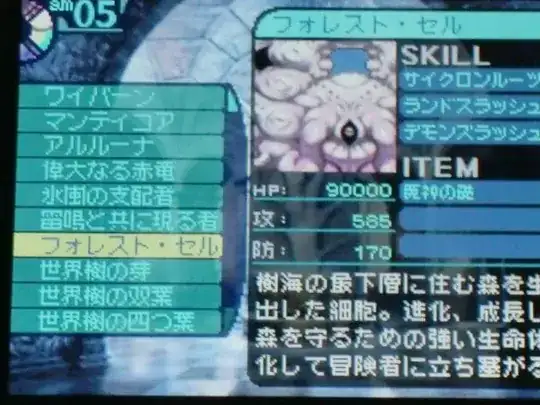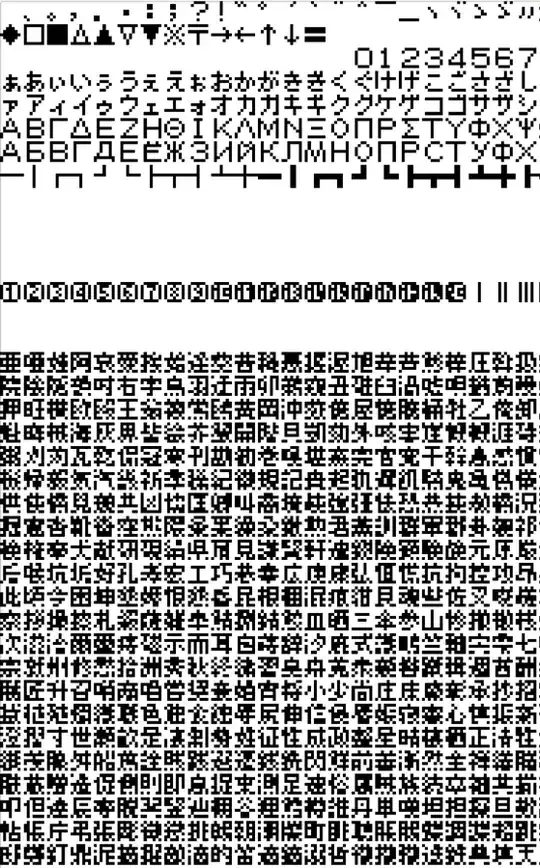
I am translating my mobile game from english to japanese. It is pixel art style, so I need pixel art font. I found one with 8px height, but I don't know if it is too small to understand, because I don't know any japanese myself. These kanji glyphs worry me the most.
So my question is, do you understand these glyphs or are they too hard to read?
Not Japanese, beginner level: can recognize about 15-25%. In the context it would be easier, I think. But those at the bottom... – scriptin Jul 04 '16 at 22:06
The kanji together looks like some QR code. I can't make out many of them. – Flaw Jul 05 '16 at 09:07
TLDR: Use at least a 9px font unless you want negative reviews.
This is 美咲フォント, isn't it? Actually, it's indeed 7px per glyph plus 1px padding :) I know this font, but didn't mention it in my previous answer, because I thought you will never need this in smartphone games with LCDs with >200 dpi.
8px (7px + 1px) kanji fonts are used in some real games on 3DS, which is equipped with very low-res screens. For example, the 3DS version of Dragon Quest X and games from Etrian Odyssey franchise use this font (or something similar), because they needed to display many characters simultaneously.
However, such fonts are only readable and understandable with the aid of the context. And even with the context, some kanji are still hard to recognize even to a native speaker. I remember great many Dragon Quest users complained about the difficulty in recognizing characters when the 3DS version was released. Even the native speakers could not distinguish between 鉄の剣, 鋼の剣 and 銅の剣 ("iron, steel and copper sword", respectively).
If you do need this tiny font, you have to be more careful than usual. You have to tell your translators to avoid using complicated kanji in the translation process. Try to use it as sparingly as possible, and never use it in the critical parts of your game.
Example (screenshot from Etrian Odyssey taken from this blog article):
The list on the left uses a 9px (in actual glyph height) font, which I think is not tough to read. Under "SKILL" and "ITEM", there are 7px characters, and I can barely recognize the kanji under "ITEM" (魔神の礎). The 9px font is used throughout the game with almost no problem.
If you are developing a smartphone game and want to add the pixel-art feelings to it, perhaps 10–11px bitmap font is a reasonable choice, which is readable enough, and "jaggy" enough. Or you can use TrueType fonts designed exactly for this purpose (for example, this).
By themselves, most kanji (the glyphs) at the bottom are hard too recognize. As part of a sentence wuth some context, you can read it, but it definitely does not look nice at. I'd say 8 pixel is a bit too low.
However, I recently did some hobby programming as well and found this font:
PixelMPlus
It's freely available and a true type font without any embedded bitmap font. It comes at 10 and 12 pixel, which is much easier to read and looks better.
Same here. Context would make most of them clear. I'd prefer the old trick of using hiragana and spaces to make it look cleaner if you use a font that small; that's what video games do quite often (at least, the somewhat old games I play). – Nick O. Jul 04 '16 at 23:04
I think the majority of these are legible with no problem. But a good number of them might be difficult to work out.
I think you would be safe using Hiragana with spaces, which has plenty of precedent for games. Or, you could use only the legible Kanji and replace the others with Hiragana and Katakana.
Here's the same sentence with a few options:
"Push the blue turtle"
• 青いを押す -「亀」
would be hard to read in such a small font.
• 青いかめを押す・青いカメを押す
just switch the complex kanji to hiragana or katakana. this is probably the easiest to read imho.
• あおい かめを おす
switch everthing to hiragana with spaces. lots of precedent for this, no problem unless you have a lot of text on one screen.
• アオイ カメヲ オス
all katakana with spaces
• あおい カメを おす
mixed kana with spaces
• あおいかめをおす
all hiragana, no spaces. don't do this unless your game is about Genji Monogatari.
• Aoi kame wo osu
all romaji. don't do this unless your game is designed make people argue.